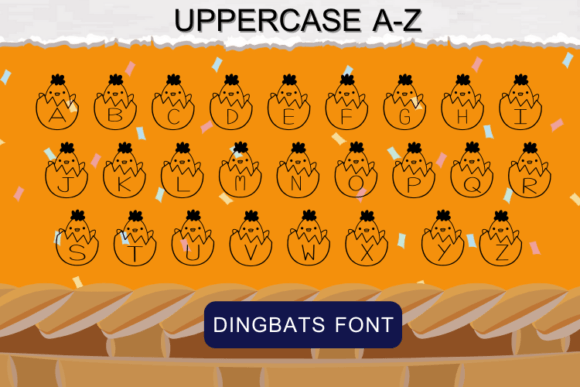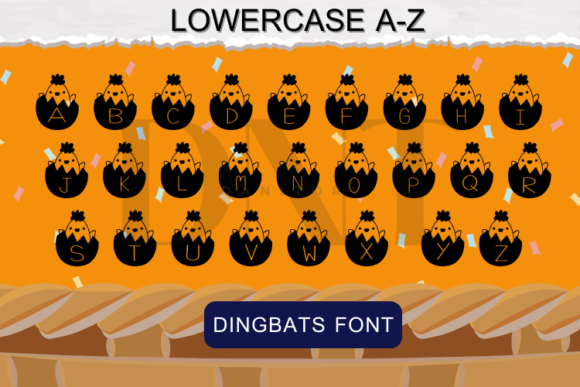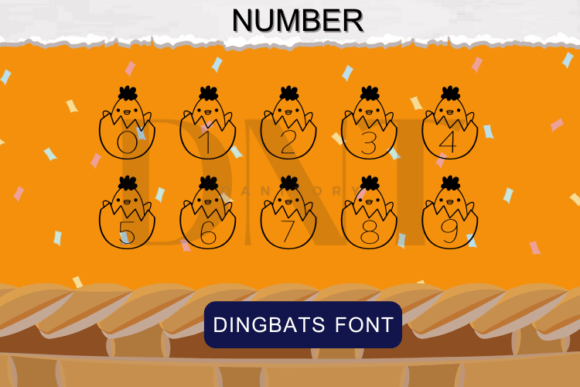
Introduction to Baby Chick Easter Font
As a designer, there’s nothing quite like the thrill of brainstorming ideas for a new project, especially when it’s tied to a specific holiday or theme. The Easter season is just around the corner, and with it comes the perfect opportunity to get creative with festive designs. But, have you ever found yourself struggling to find the perfect font to match your Easter vibes?
That’s where the Baby Chick Easter Font comes in – a delightful dingbats typeface that’s sure to bring a smile to your face. This charming, hand-drawn font is not only adorable, but also offers a high-quality design resource that’s perfect for a variety of creative projects. Whether you’re designing digital media, print materials, or even crafting your own Easter-themed products, this font is sure to be a valuable addition to your design arsenal.
With its transparent background and free download availability, the Baby Chick Easter Font is an absolute must-have for any designer looking to add a touch of whimsy to their Easter-themed designs. So, why not give it a try and see how this fantastic font can help bring your creative project to life?
Key Features of Baby Chick Easter Font
- High-quality vector design for a creative project, perfect for Easter-themed artwork.
- Unique characteristics include adorable baby chick illustrations, ideal for Easter-themed designs, greeting cards, and party decorations.
Honest Review: Baby Chick Easter Font
I recently stumbled upon the Baby Chick Easter Font, and I must say it’s a delightful addition to any design project. This free download offers a high-quality design resource that’s perfect for creating a festive atmosphere. The transparent background makes it easy to integrate into your design, and the font itself is a creative project come to life.
What works well about this font is its charming, whimsical feel. The Baby Chick Easter Font is perfect for designers looking to add a touch of springtime magic to their designs. The font is also highly versatile, suitable for a wide range of creative projects, from social media graphics to invitations.
- Suitable for various creative projects
While the Baby Chick Easter Font is a great resource, there are some limitations to consider. The font may not be suitable for all design projects, particularly those requiring a more formal or professional tone.
Overall, I’m impressed with the Baby Chick Easter Font. It’s a great addition to any designer’s toolkit, and its free download makes it an even more attractive option. With its high-quality design and transparent background, this font is sure to bring a smile to your design project.
The Baby Chick Easter Font is commonly used in Easter-themed designs, including invitations, posters, and graphics. It is also used in spring-themed designs, such as gardening and floral arrangements. This font is a great resource for anyone looking to add a touch of Easter or spring flair to their creative project.